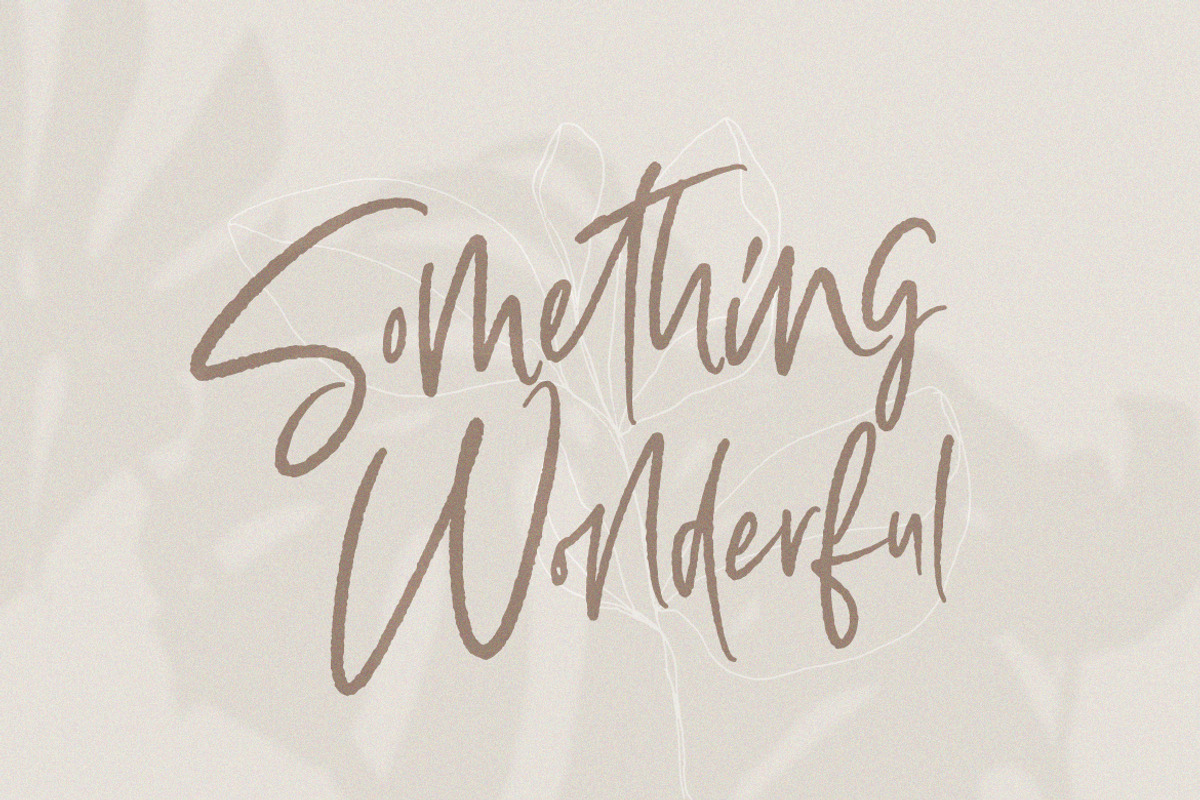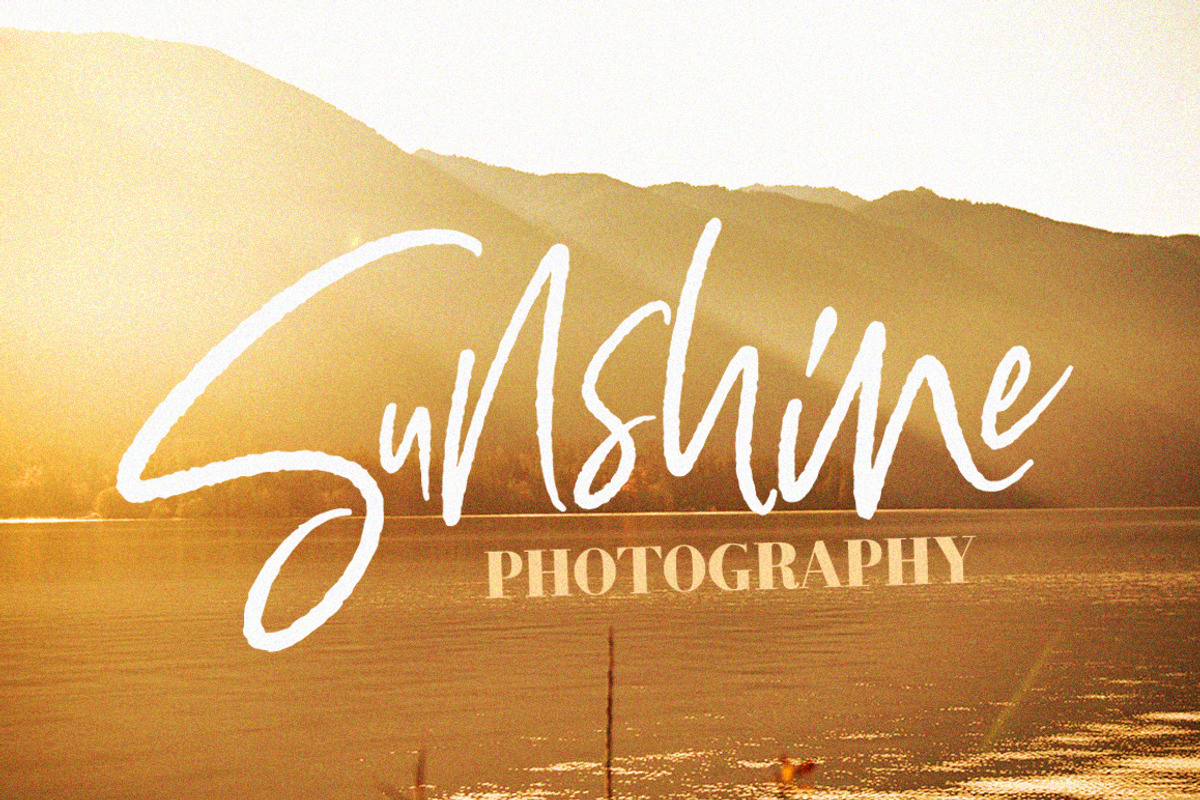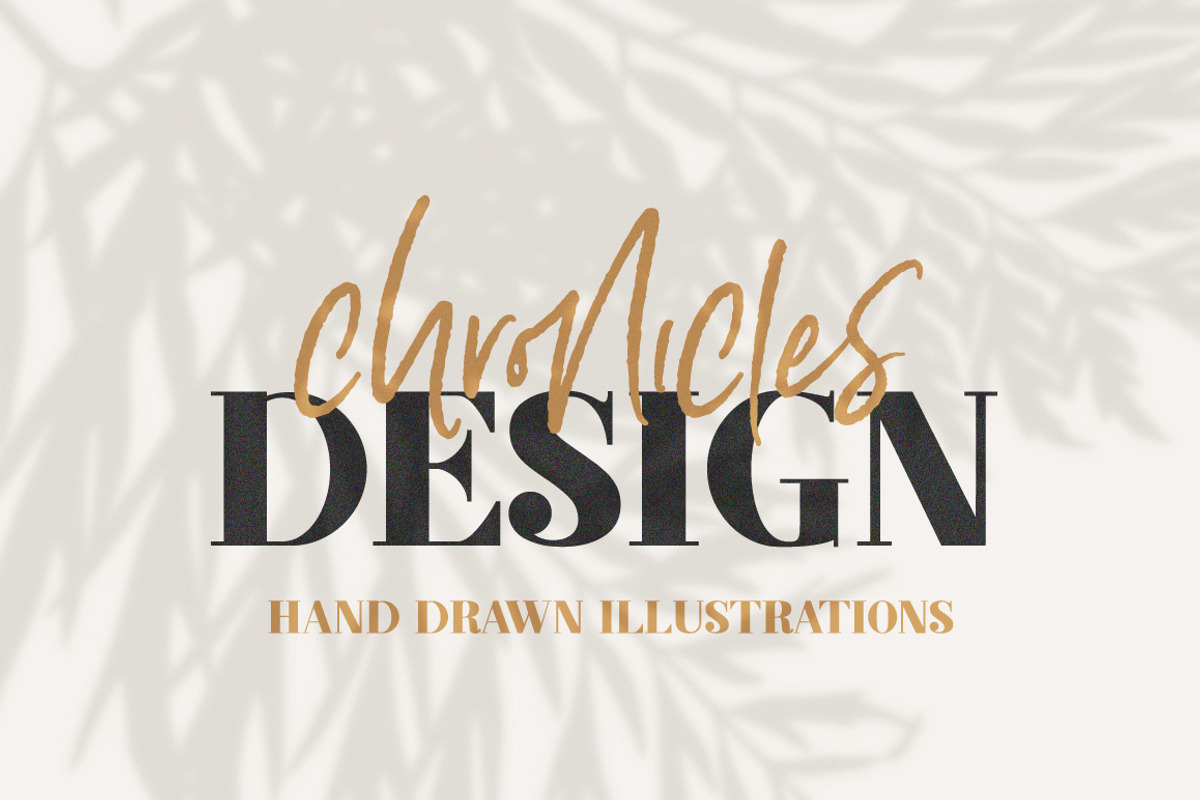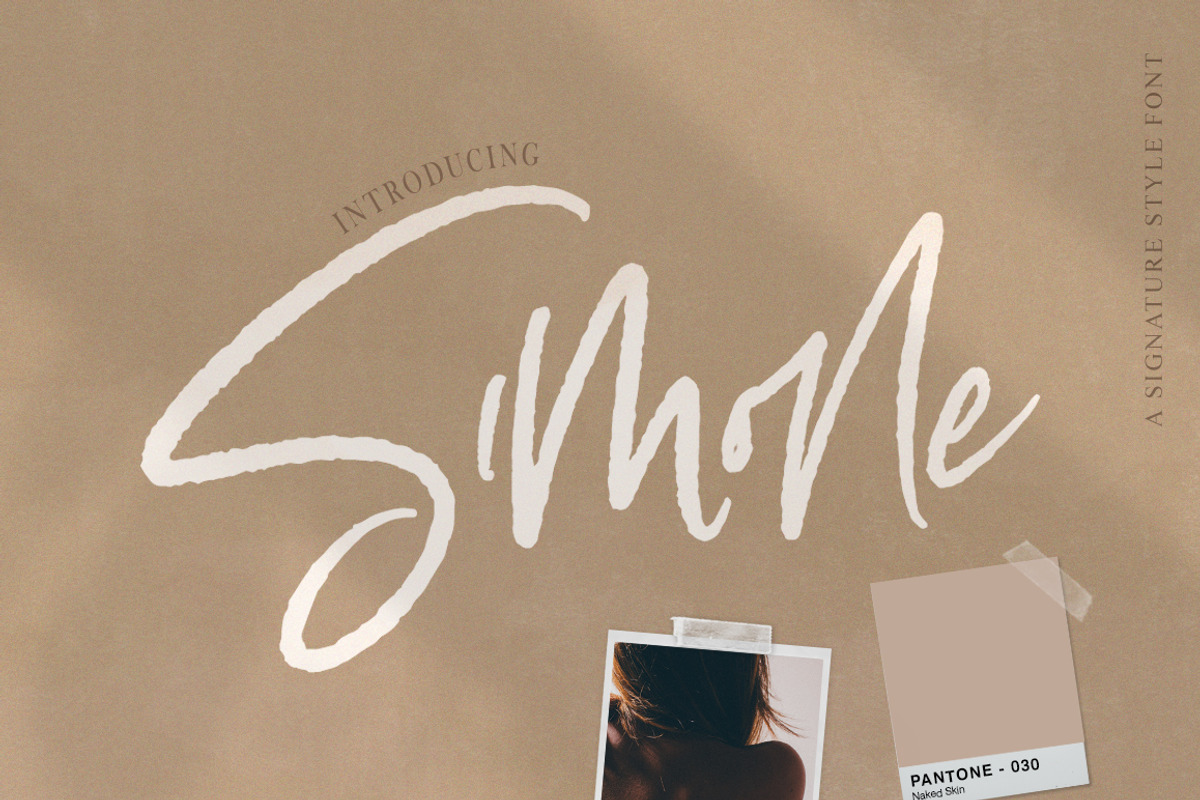
Simone Script Font
Simone is edgy, hand drawn and stands out from the crowd! She likes to be the center of attention but doesn’t mind being complimented by other fonts as long as they don’t try to steal focus. Enjoy and let her rock your designs!
Why Simone Script Font is worth a look
Simone Script Font by Salt & Pepper Designs fits naturally into Branding, posters, packaging, typography.